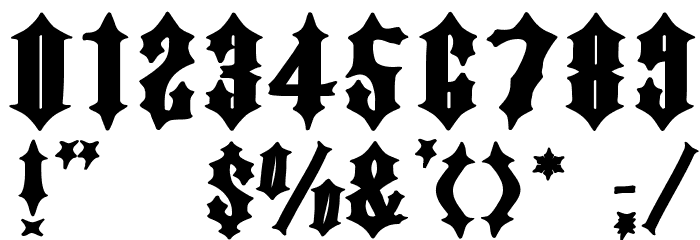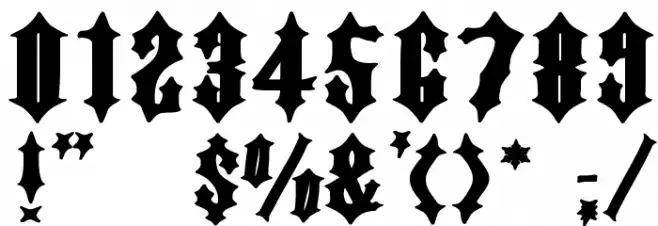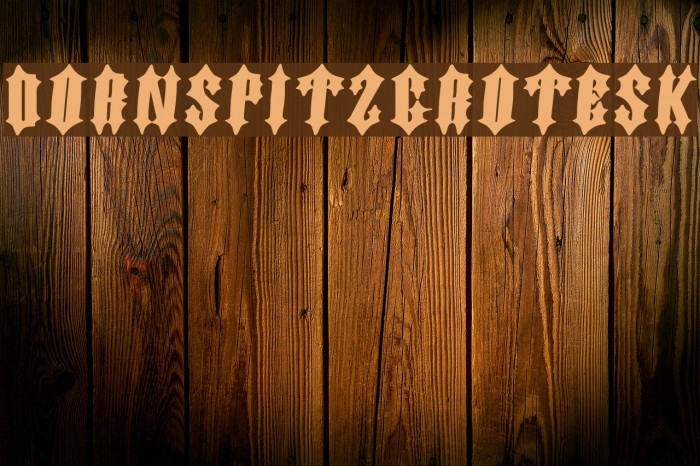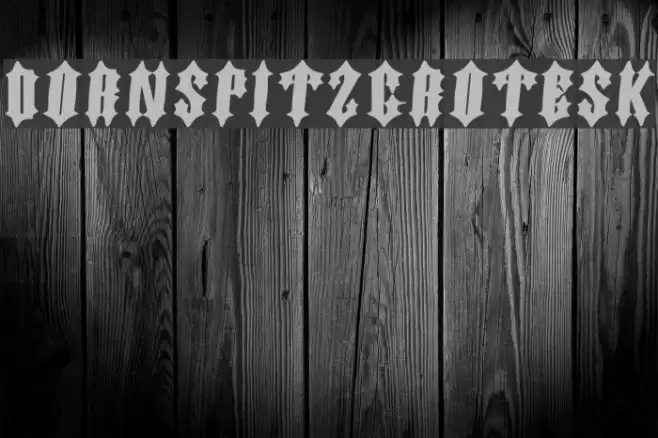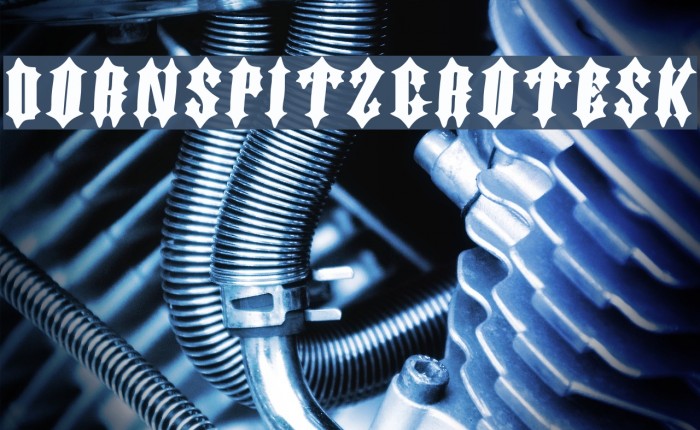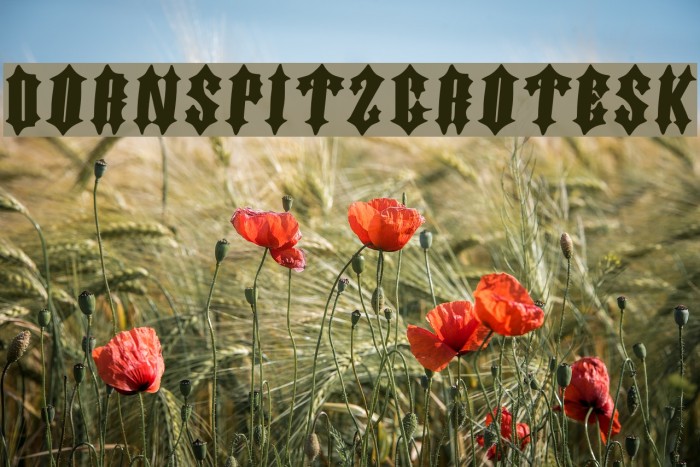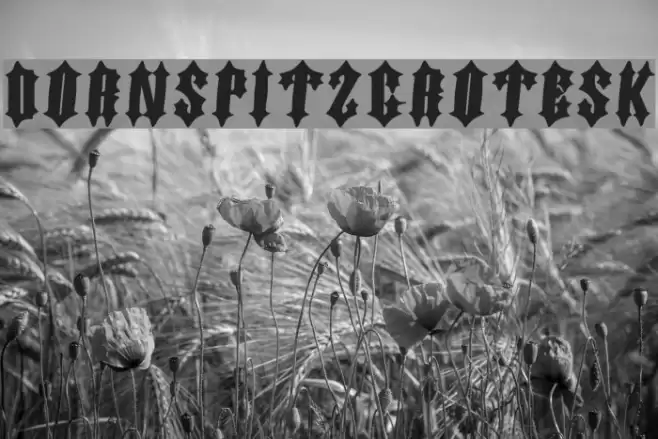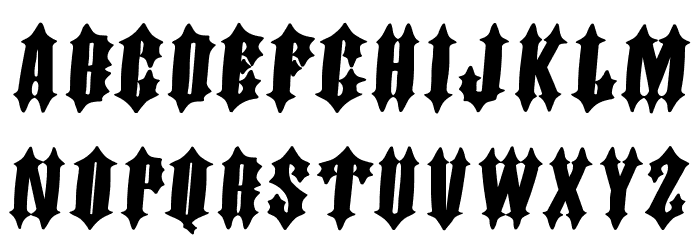
DornspitzGrotesk Font
DornspitzGrotesk Description
This font features a bold and striking design with sharp, angular edges and a distinct Gothic influence. The characters are heavily stylized, with pointed serifs and a dramatic flair that evokes a sense of medieval or fantasy themes. The uppercase and lowercase letters maintain a consistent style, with the uppercase being particularly prominent and commanding. Numbers and special characters are equally bold, ensuring a cohesive look across all text. The font's unique appearance makes it ideal for projects that require a strong visual impact.
| Proposed Projects | Ideal for fantasy-themed designs, posters, album covers, or any project needing a dramatic and bold typeface. |